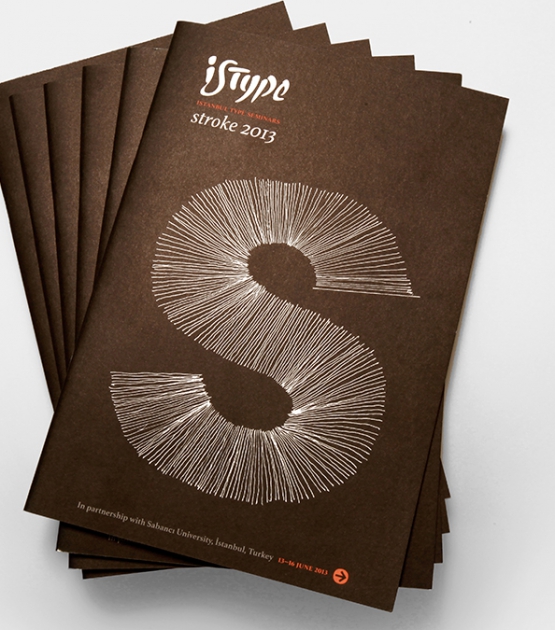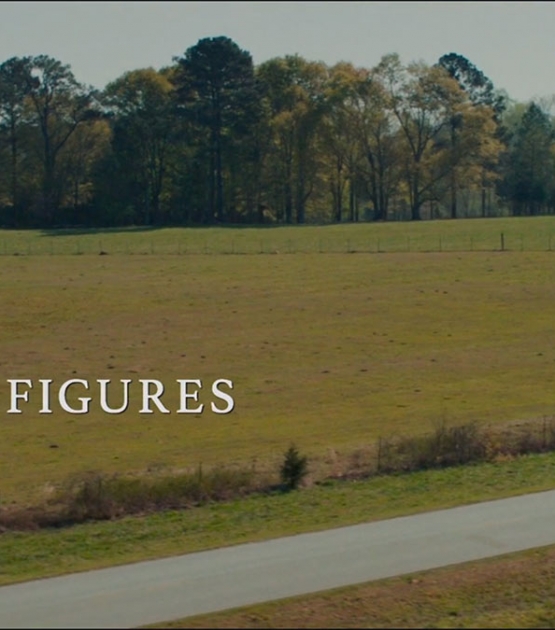
Athelas
Designed by José Scaglione Veronika Burian . Released 2008.
Inspired by Britain’s classic literature, Athelas is an elegant book font family for screen and print. It takes full advantage of typographic tranquility and breathes peacefully on the page to usher the reader into the wordsmith’s art.
Athelas
An elegant font family for books, successfully used both on screen and in print.
Inspired by Britain’s classic literature and created by Veronika Burian and José Scaglione, Athelas prioritises the beauty of fine book printing and makes it available digitally and in printed form. It takes full advantage of typographic tranquility — the white space in the margins, between the columns, the lines, the words, and finally within the characters themselves. Athelas breathes peacefully on the page to usher the reader into the wordsmith’s art.
Athelas is a typeface with open counters, elegant curves, and graceful serifs. Fluid shapes in the roman variants meet their counterpart in a more angular italic, but there are no sharp edges in the entire character set. Athelas also takes advantage of the technical developments made in offset printing. It shows its best side in finely crafted books and high quality printing conditions, or in digital works that place a premium on the tone and beauty of the piece.
Although inspired by British literature, Athelas respects the cultural needs of languages where diacritic marks play an indispensable role. It has a large character set covering most Latin-based languages, as well as monotonic Greek (designed by Irene Vlachou) and Cyrillic (designed by Tom Grace). As recognised by its use in Apple Inc.’s iBooks app and the desktop operating system Mavericks, the complete Athelas family has been optimised for today’s varied screen uses, along with our entire catalogue.